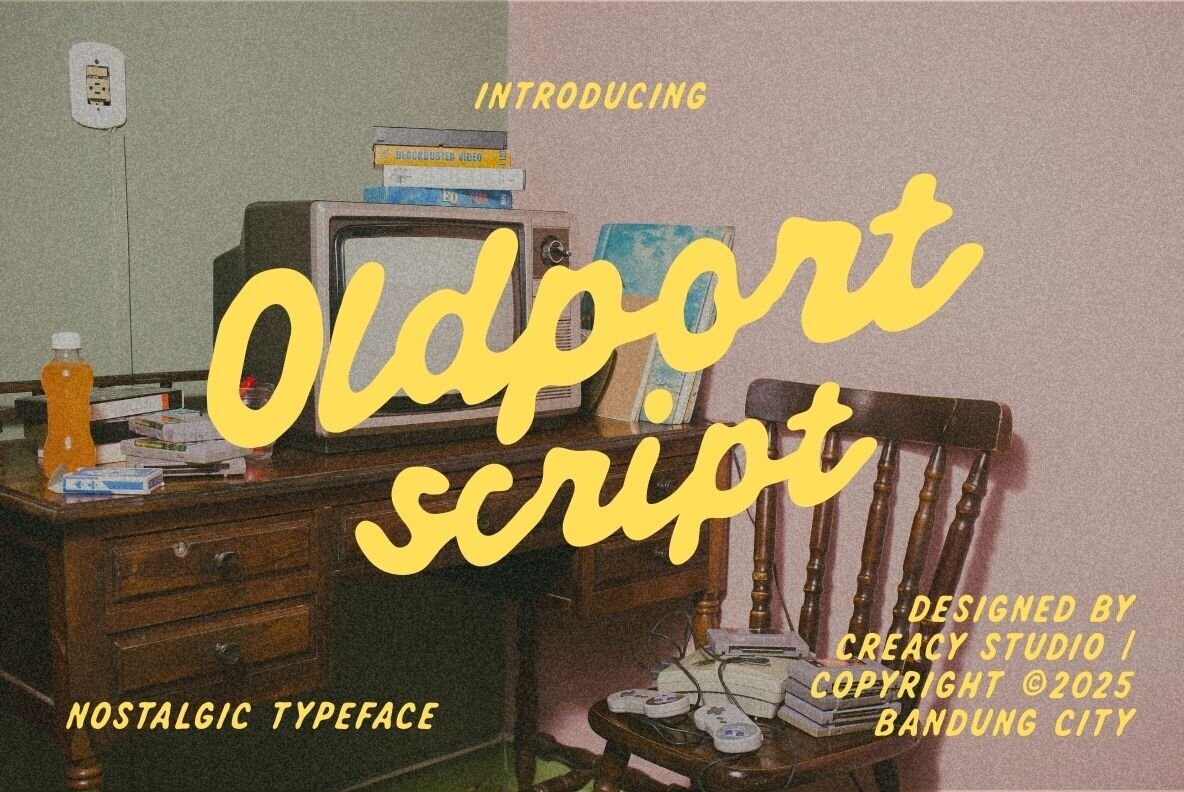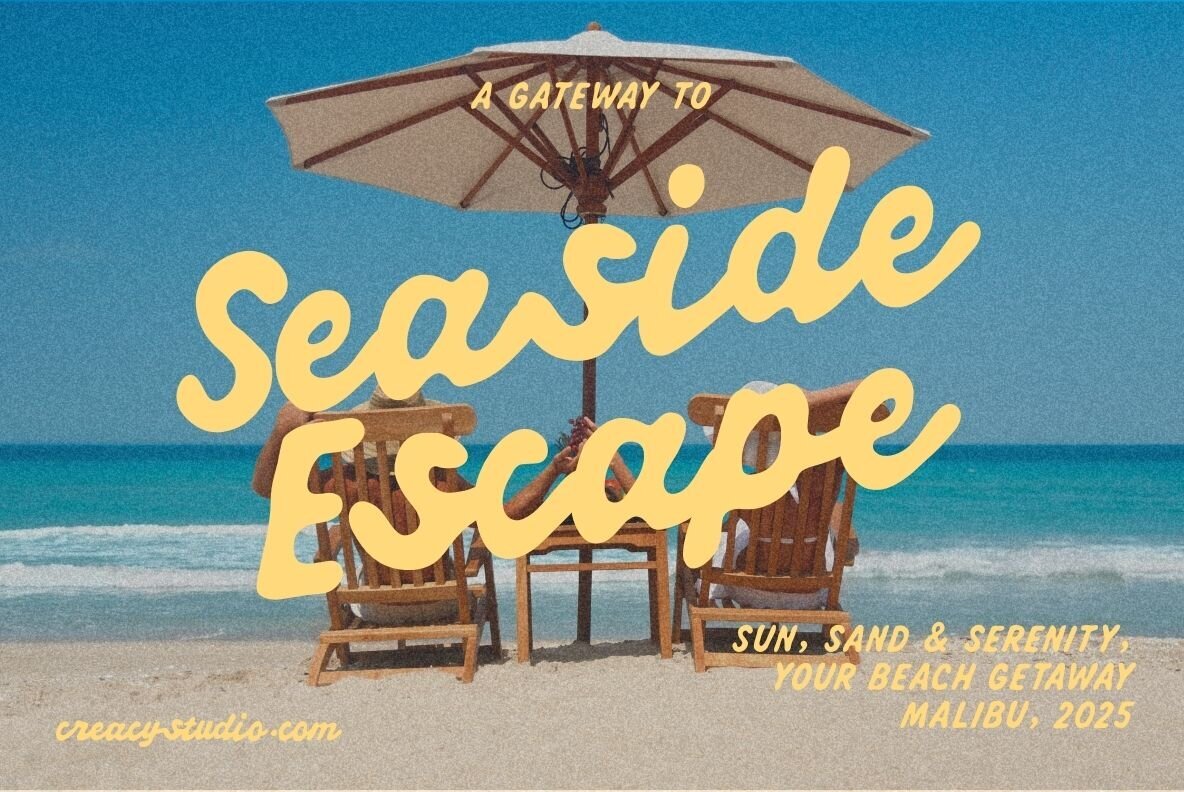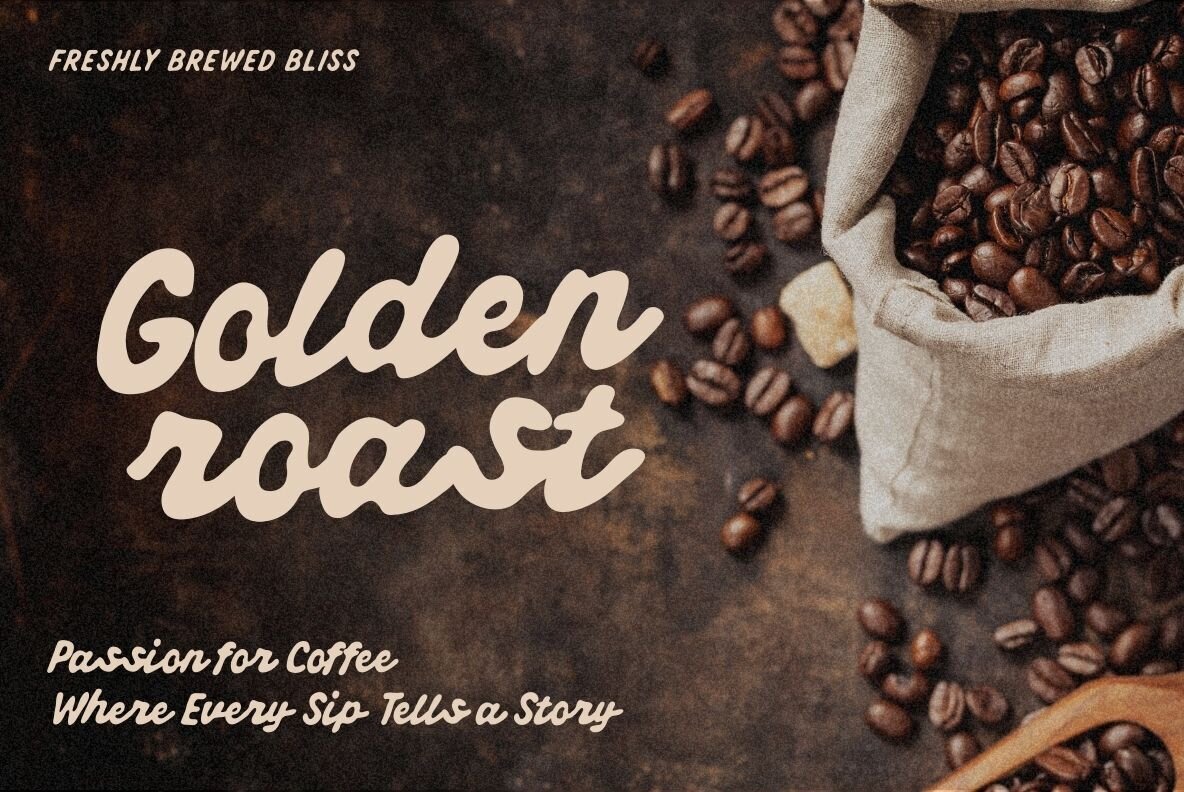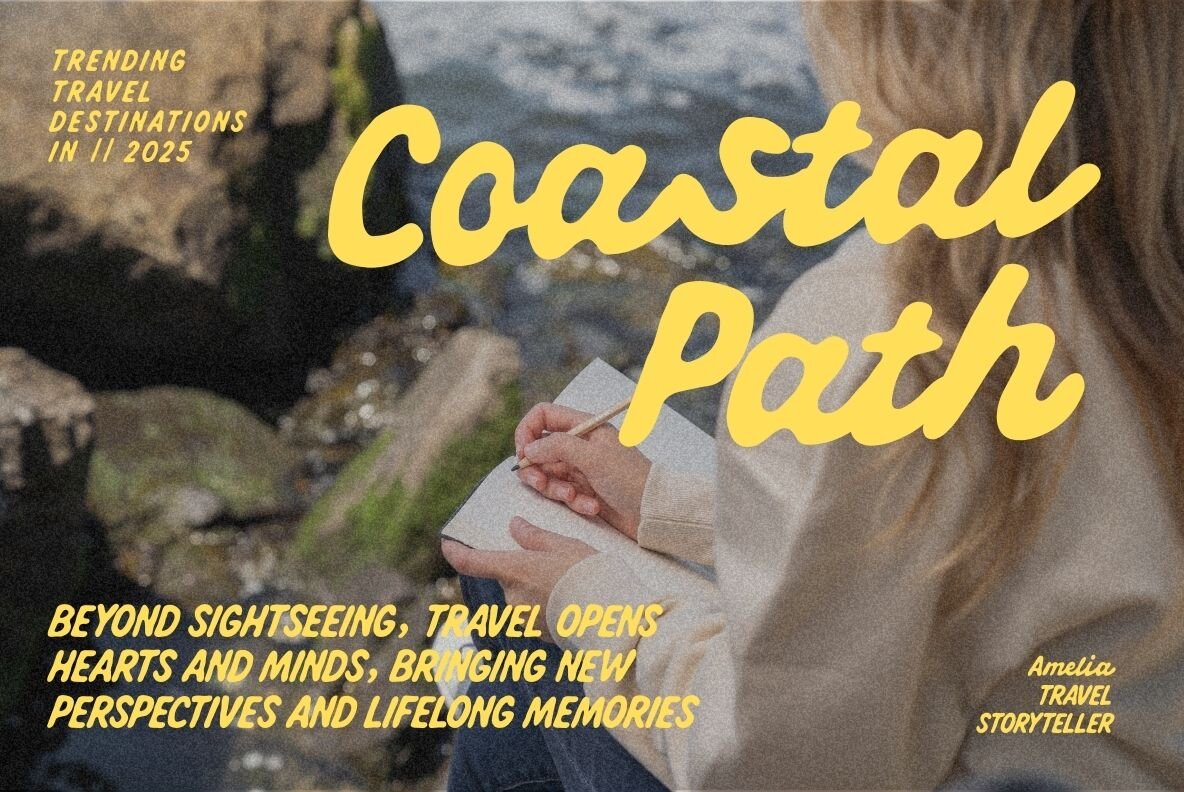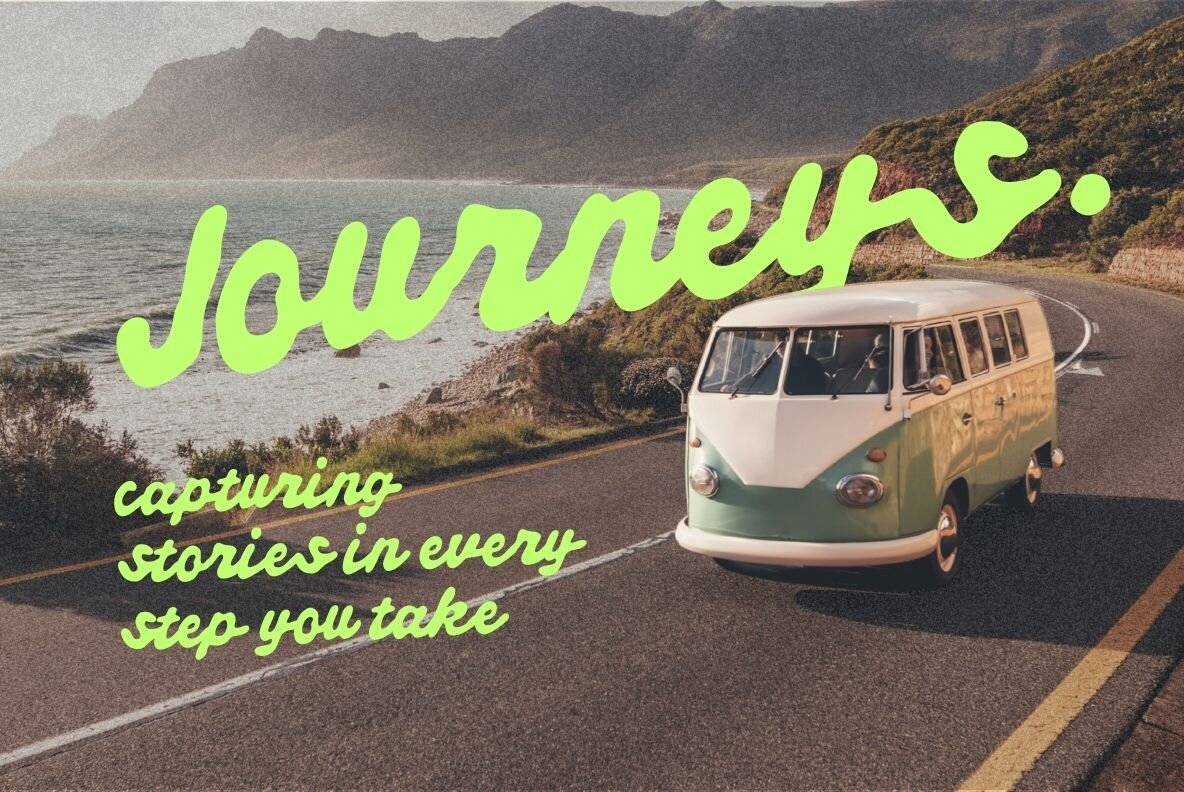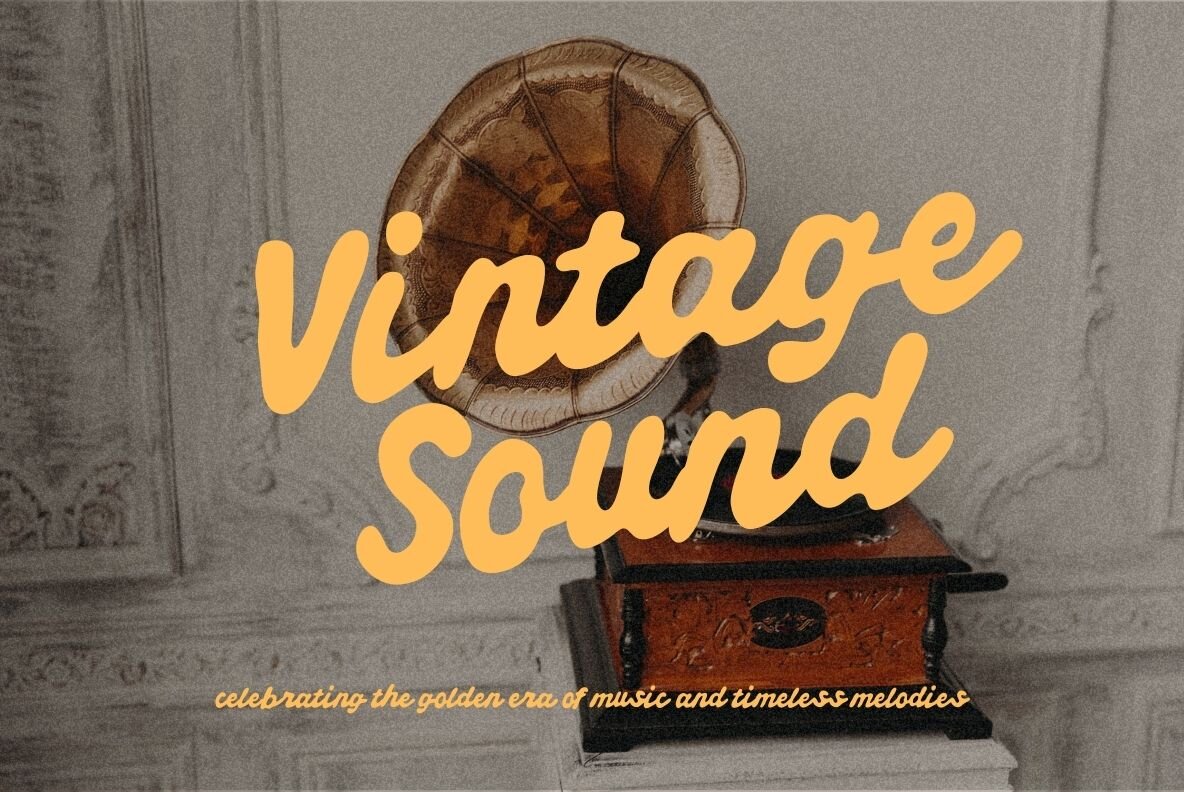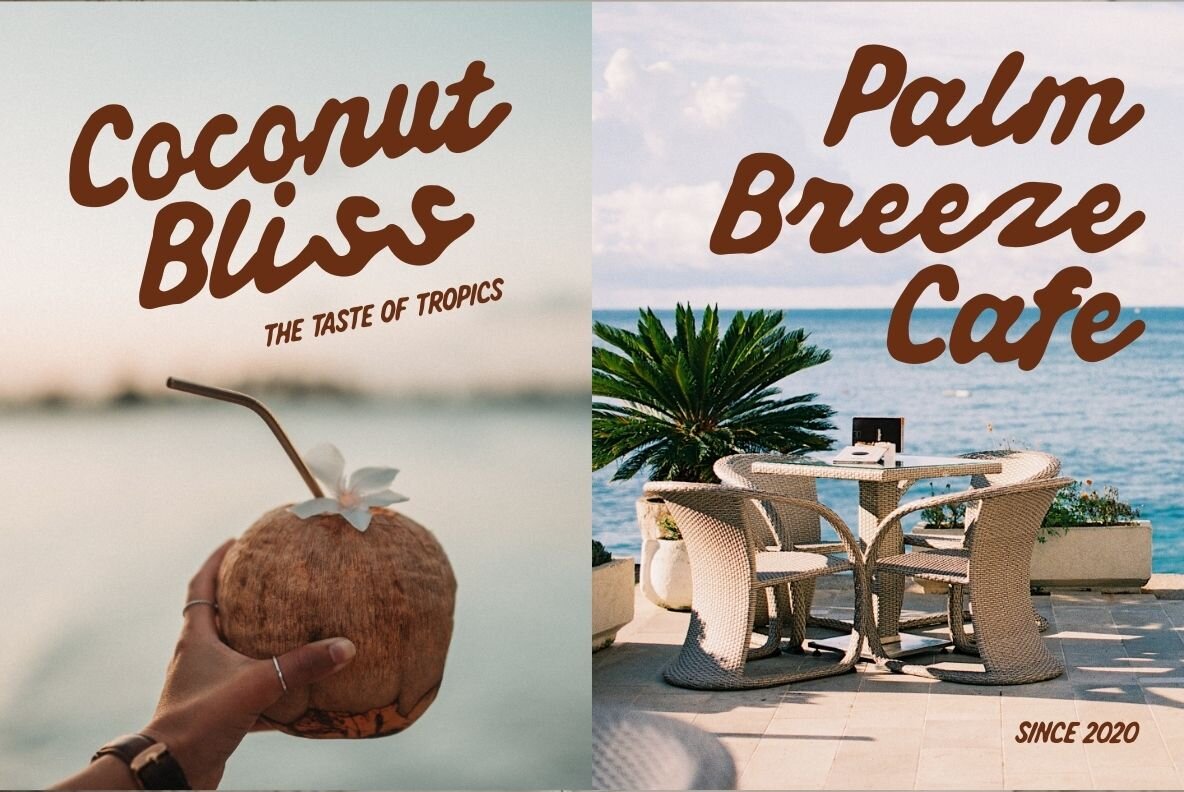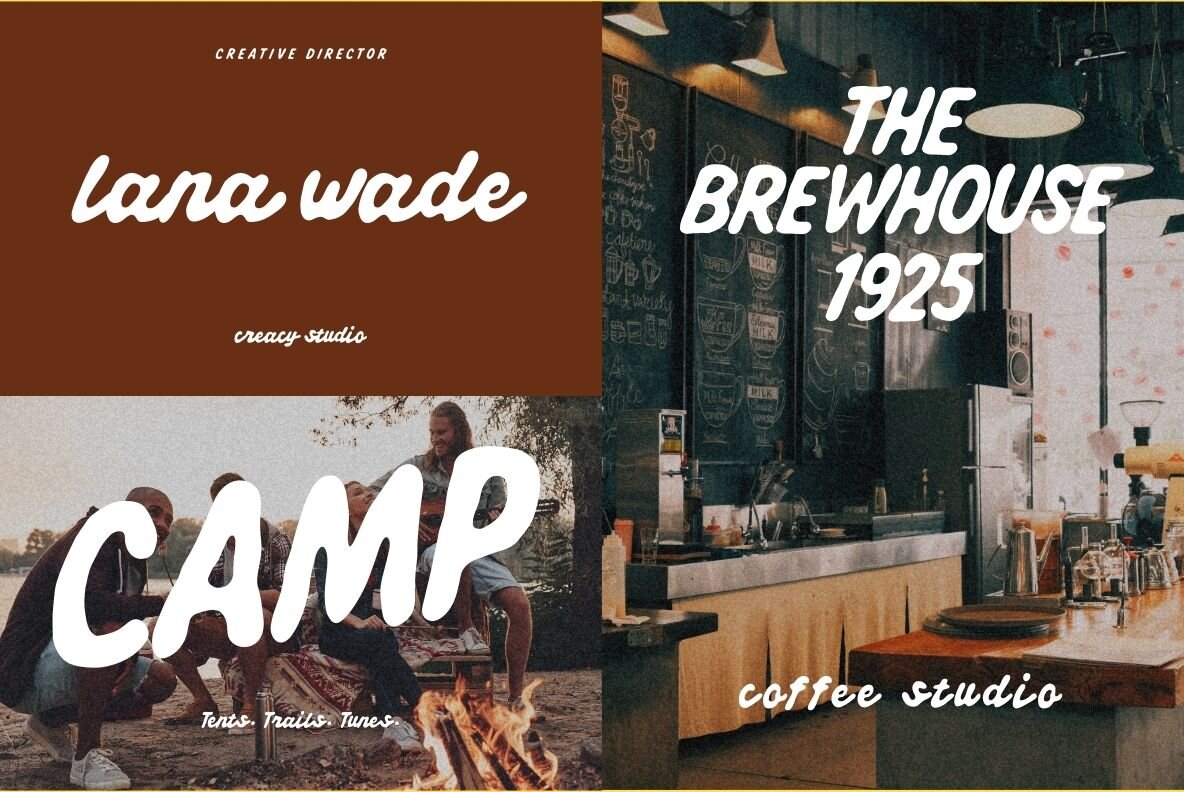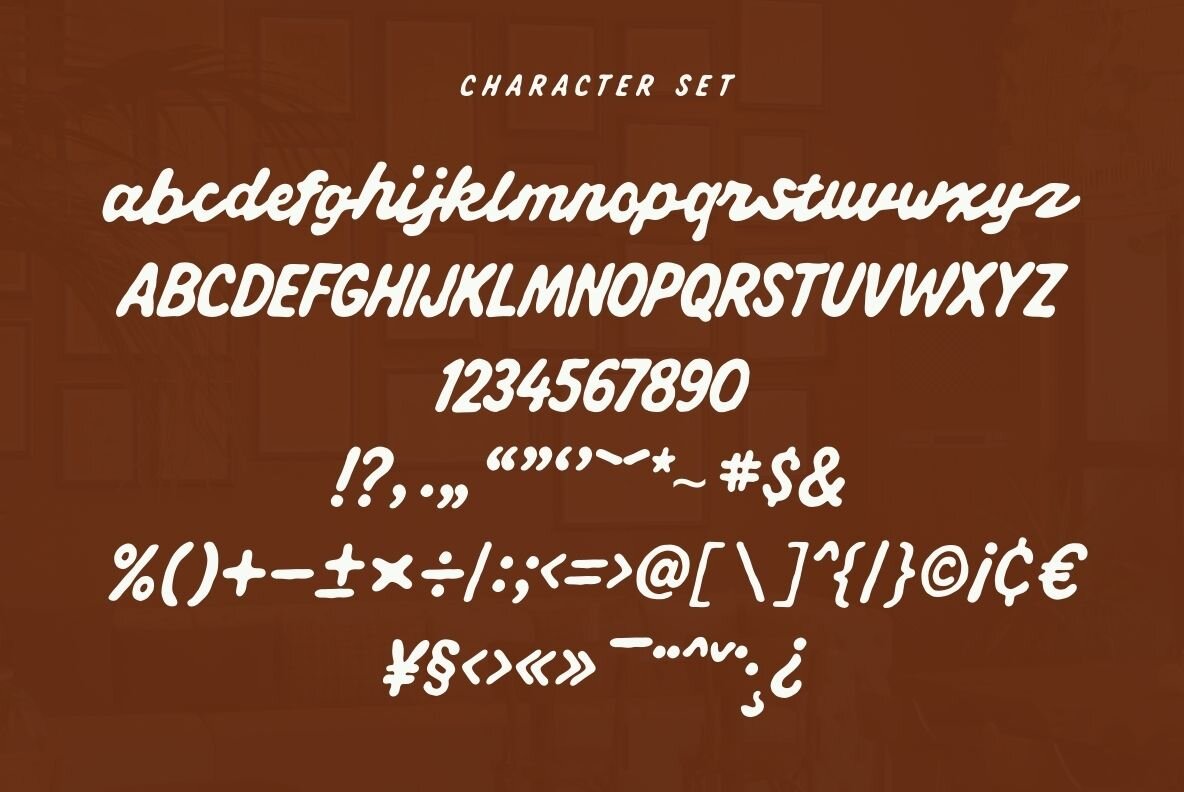
Oldport Script Font
Bring the charm of yesteryear into your designs with Oldport Script, a bold and smooth handwritten typeface inspired by mid-century signage, vintage travel posters, and retro coastal aesthetics. With its flowing curves, rounded edges, and slightly slanted forms, Oldport Script evokes warmth, adventure, and timeless style. Perfect for branding, packaging, editorial headlines, and social media graphics, this typeface effortlessly blends nostalgia with modern usability. Whether you’re crafting a beach getaway ad, a cozy coffee shop logo, or a classic music poster, Oldport Script adds a personal, hand-crafted touch that feels both familiar and fresh. Features: Uppercase & lowercase letters Numbers & punctuation Multilingual support Smooth curves with consistent stroke weight Ideal for retro, coastal, café, travel, and lifestyle projects